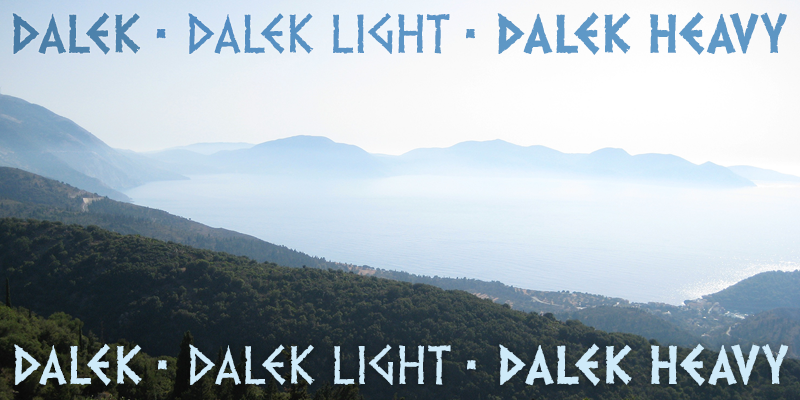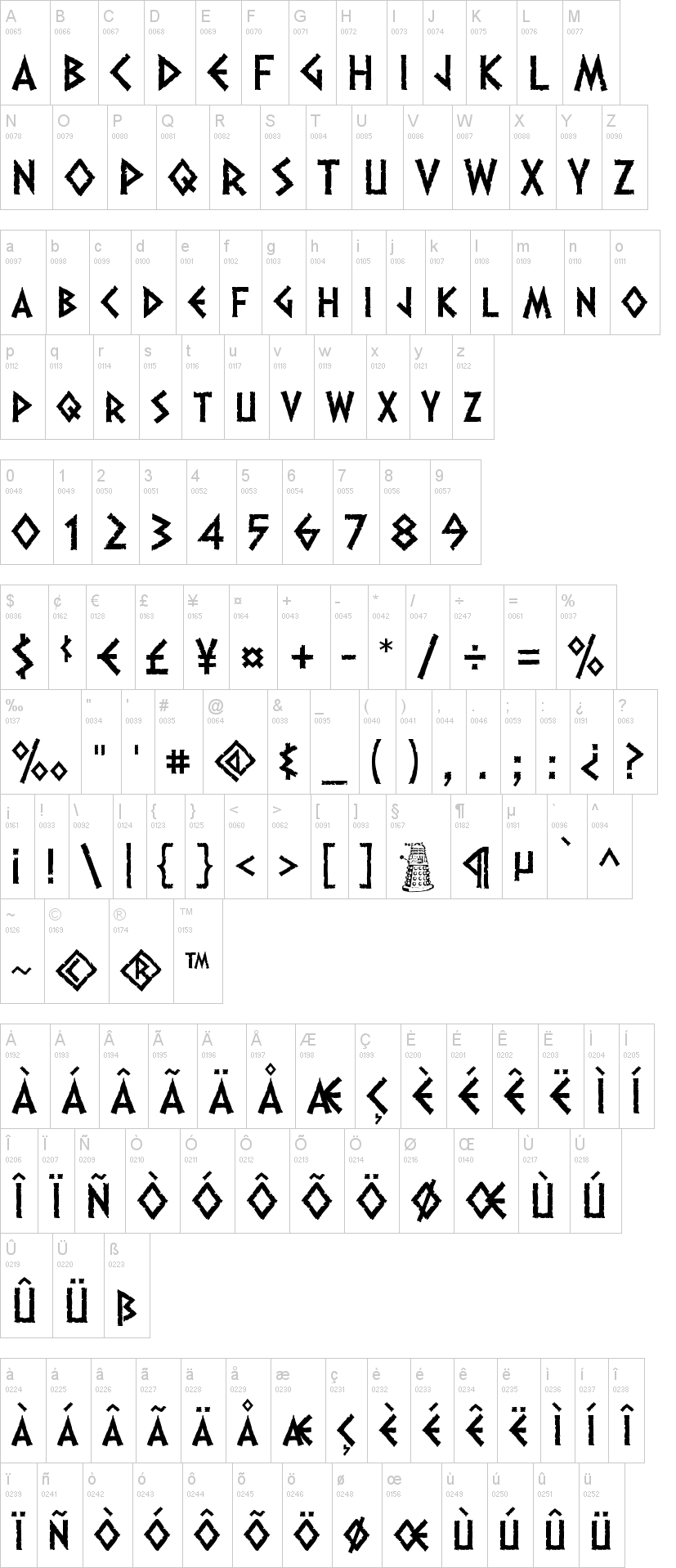
Note of the authorDalek is a distressed, small caps typeface based on the lettering used in the Dalek Book of 1964 and in the Daleks strip in TV21 comic. The fonts have overtones of Greek, Phoenician and Runic alphabets.